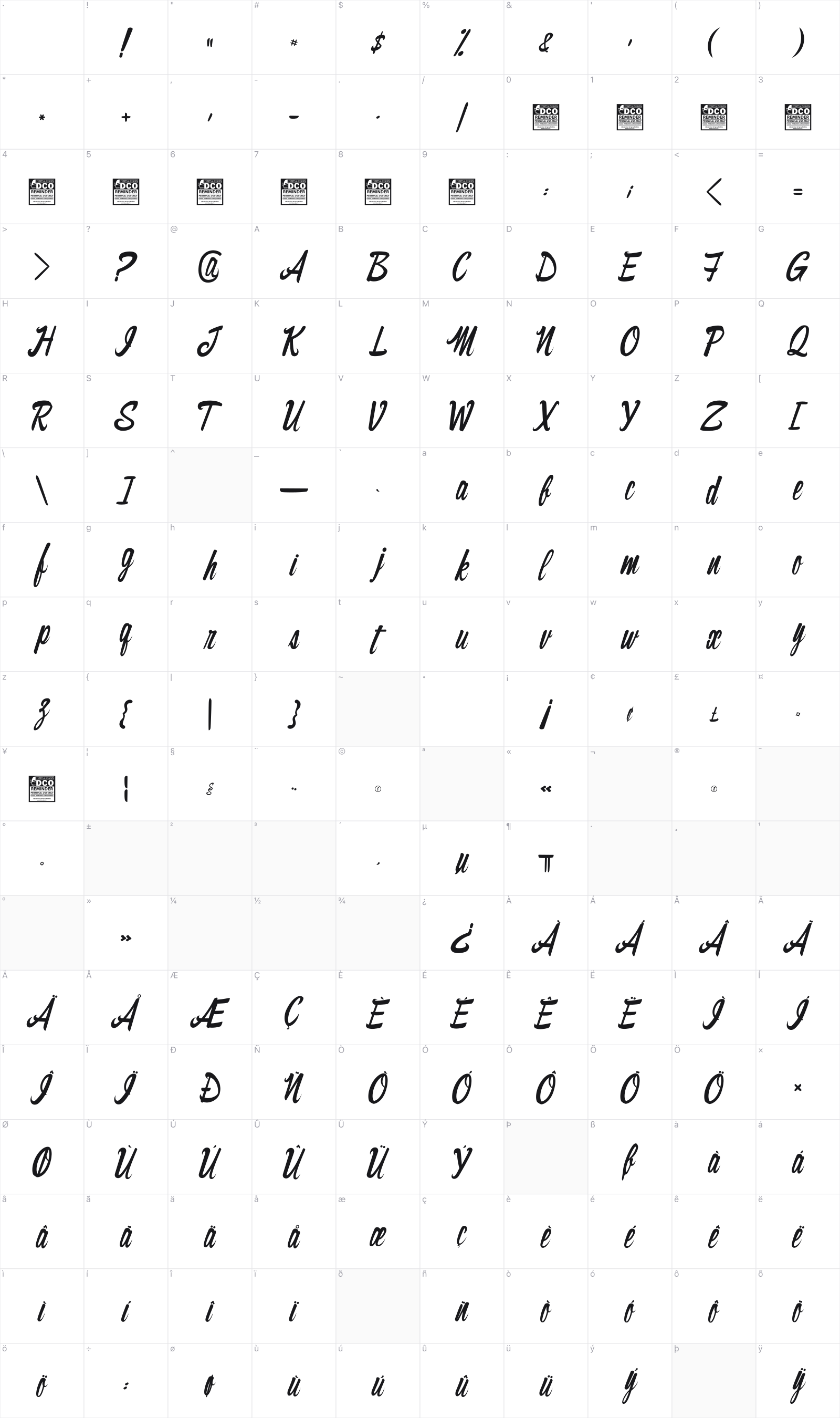
Cinthia Edito
Cinthia Edito is a bold connected brush script with strong italic momentum and natural ink-like stroke variation. The generous x-height and fluid letter connections give it a lively, handmade feel that reads instantly at large sizes. It works well for branding, posters, and any project that needs handwritten warmth with visual punch.